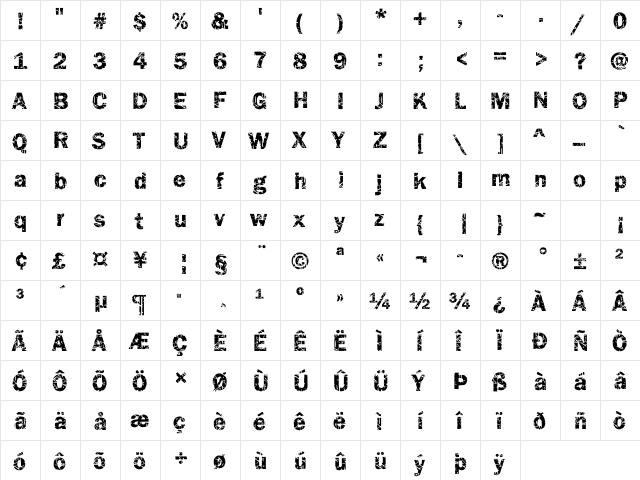
DTCFunkyM07 Regular
Design Context for DTCFunkyM07 Typeface
DTCFunkyM07 trades formality for fun, with bouncy, characterful letterforms that bring warmth and energy to any project.
Font Pairing: Pairs well with a rounded or humanist sans for body copy, maintaining the friendly tone without relying on DTCFunkyM07 to carry extended reading.
Pro Tip: Avoid using DTCFunkyM07 for long passages of text — it works best for headlines, labels, and short calls to action.